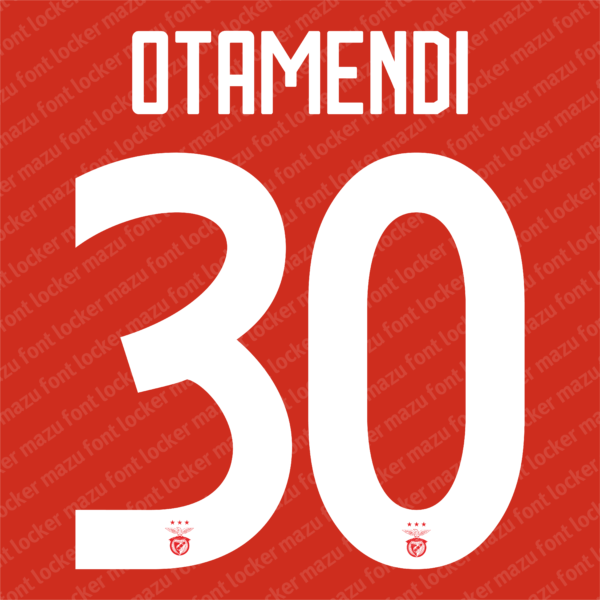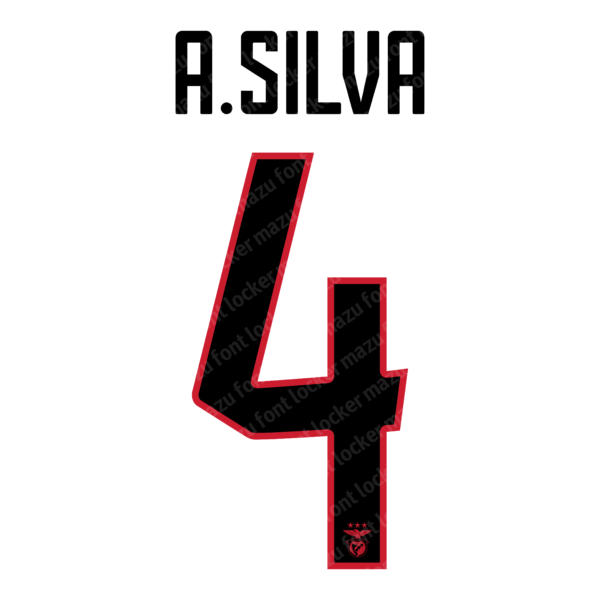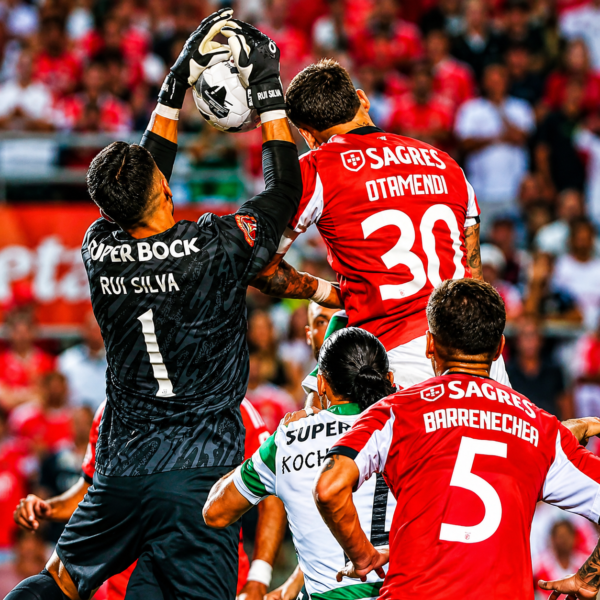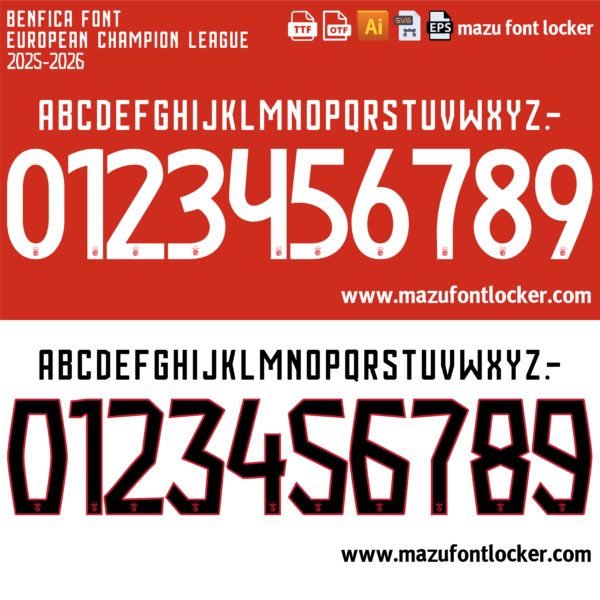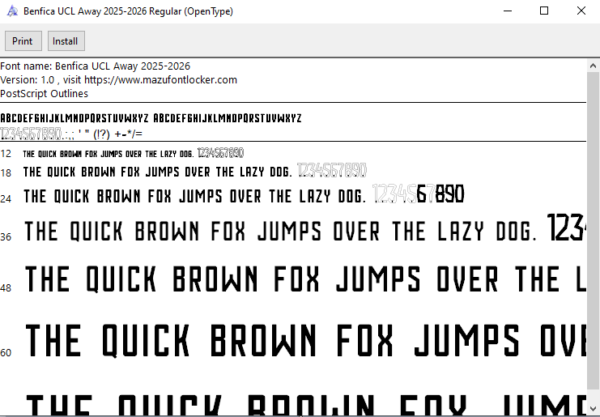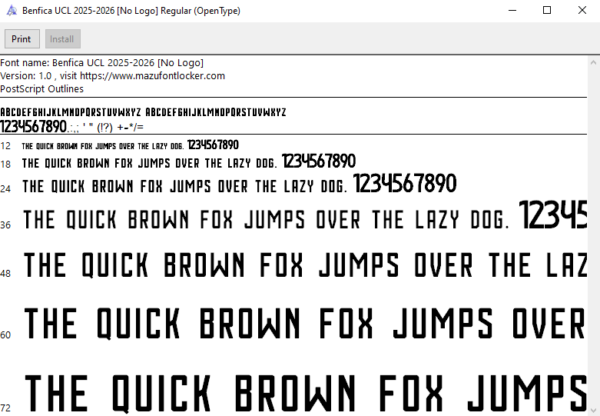
Benfica 2025-2026 Font Vector – Epic Dominant Águias Masterpiece
Download the Benfica 2025-2026 Font and unleash the power of one of Europe’s most passionate clubs. This premium, high-precision football jersey font vector is expertly crafted to capture the fearless identity, glorious heritage, and explosive passion of Benfica’s dominant 2025-2026 campaign.
Designed with razor-sharp precision, the Benfica 2025-2026 Font perfectly embodies the club’s iconic red and white colours, delivering a bold, majestic, and commanding visual presence that radiates pure Águias spirit. Every letter and number has been meticulously recreated to reflect the attacking brilliance, fighting determination, and legendary pride of the Eagles on the pitch.
Celebrate the immense legacy of Estádio da Luz and bring the unbeatable spirit of Benfica to life with the Benfica 2025-2026 Font.
Benfica 2025-2026 Font Vector
The Benfica 2025-2026 Font is a premium, high-precision football jersey font vector meticulously engineered to capture the fearless energy, explosive passion, and electrifying identity of Benfica’s dominant 2025-2026 campaign.
Inspired by the mighty Águias and their iconic, high-intensity performances throughout the 2025-2026 season, this font unleashes a bold, aggressive, and majestic presence that radiates unbreakable Benfica pride, rich heritage, and unstoppable attacking spirit. Every letter and number has been painstakingly recreated with razor-sharp precision to embody the vibrant red and white identity, relentless fighting mentality, and glorious legacy that makes Benfica one of the most powerful forces in European football.
Feel the fire of Estádio da Luz. Ignite the passion. Unleash the legendary spirit of the Águias and the unstoppable power of Benfica 2025-2026.
🔥 Benfica 2025-2026 Font Features
• Authentic 2025-2026 Benfica jersey lettering style
The authentic lettering style helps recreate the classic look of the Benfica 2025-2026 kit with professional accuracy.
Unlike generic jersey fonts, this set is designed with a strong focus on authenticity and accuracy. Every detail is based on the original match lettering style used during the 2025-2026, helping designers and collectors create realistic football shirt designs.
This Benfica 2025-2026 font vector set is designed for authentic football jersey customization and works perfectly for retro football projects, collector designs, and professional sportswear artwork.